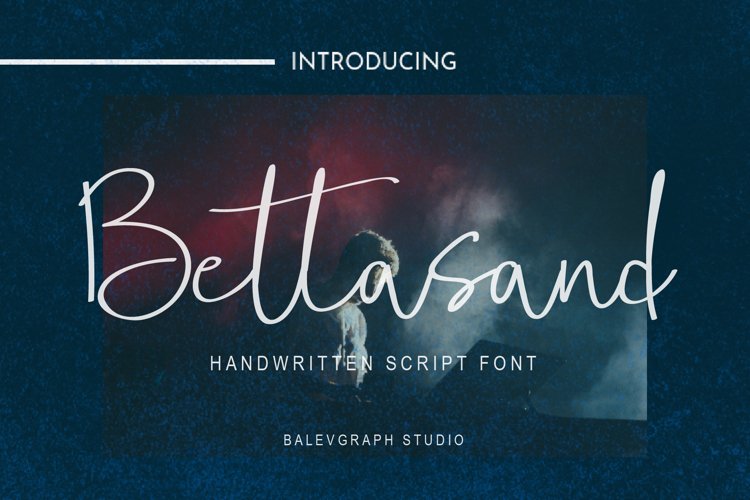
Bettasand handwritten script font is a elegant handwritten script font which purely a result of handwriting and has a natural characteristic that designed for all kind if stylish project.
Bettasand would perfect for photography, watermark, social media posts, advertisements, logos & branding, invitation, product designs, label, stationery, wedding designs, product packaging, special events or anything that need handwriting taste.